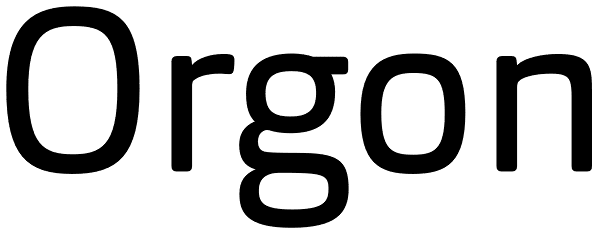
Orgon
Orgon, a new linear typeface family, fresh and easy but with a warm touch. It appears uncomplicated, unpretentious, but still distinctive. Its quiet text flow allows smooth reading even for longer texts. The Orgon family comprises 16 styles and is...